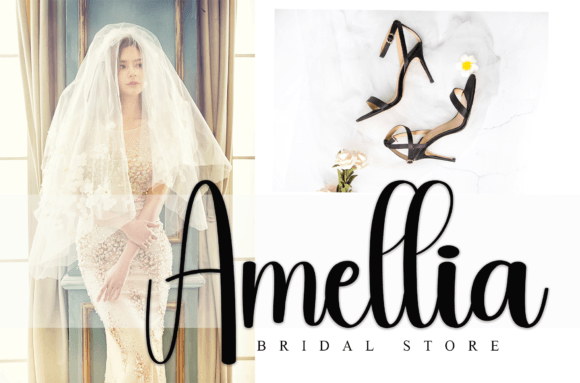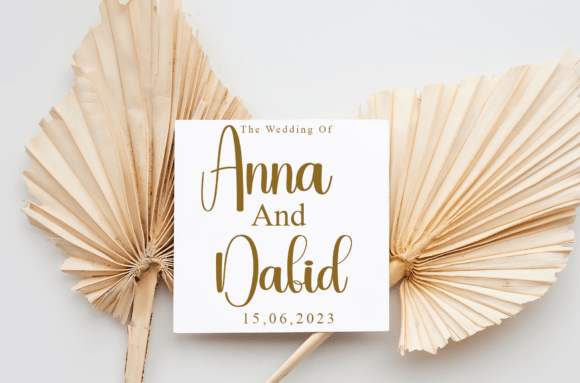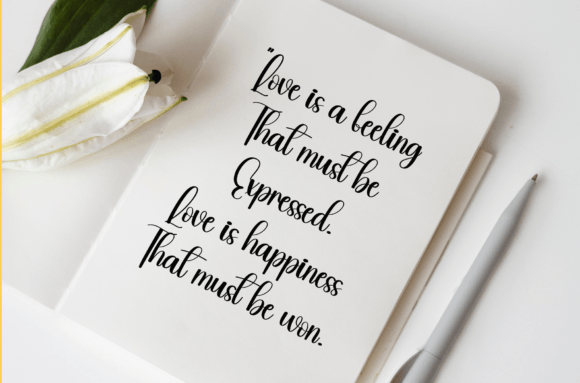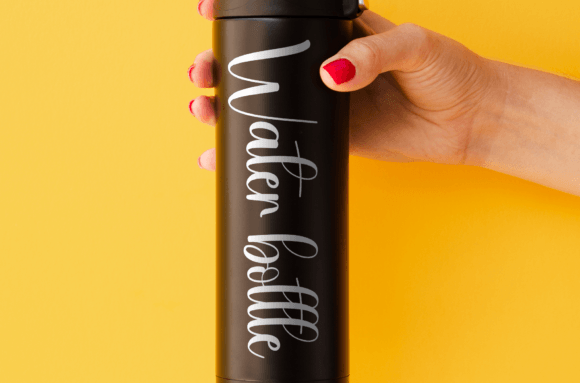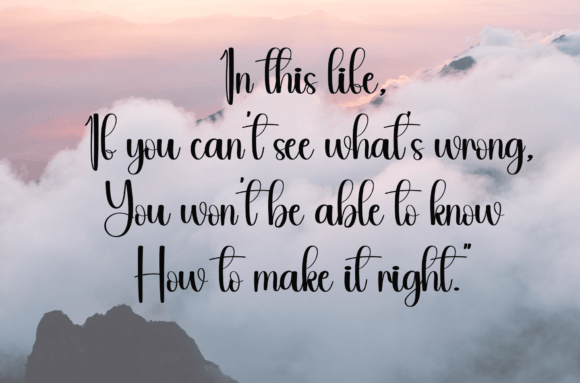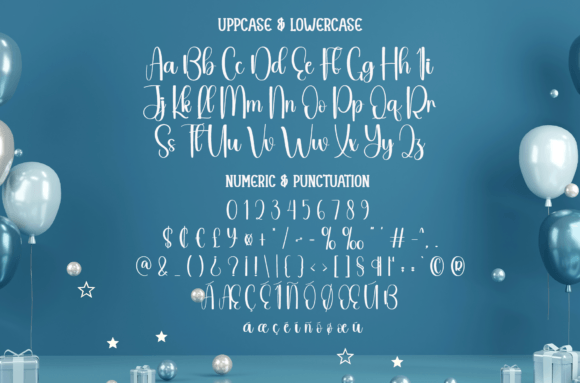
The Perfect Font for a Touch of Whimsy
Have you ever sat down with a blank piece of paper, a pen, and a spark of creativity, only to find yourself doodling away in a beautiful handwritten script? That’s exactly what happens when you work with the charming Blue Font.
This sweet and friendly font is perfect for adding a fresh touch to any design. Whether you’re crafting wedding invitations, designing cards, or creating a fun poster, Blue Font is the ideal choice. Its neat and approachable style makes it a valuable asset for designers looking to add a personal and whimsical feel to their work. With Blue Font, you can bring a smile to your audience’s face and make your designs truly unforgettable.
Key Features of Blue Font
- Unique Characteristics: Blue Font features a unique, hand-crafted design with subtle nuances and irregularities that give it a human touch.
Blue Font Review
As a designer, I was excited to dive into the world of Blue Font. I must say, it’s a visually appealing font that’s sure to grab attention. The ✨ bold lines and vibrant color palette make it perfect for creating eye-catching headings and titles.
- The font’s ✨ versatility is one of its greatest strengths. It works well in both digital and print formats, making it a great choice for designers who need to create materials for various mediums.
- Another ✨ advantage of Blue Font is its ✨ customizability. The font can be easily modified to fit any brand or design aesthetic, making it a great choice for designers who want to add a personal touch to their work.
However, as with any font, there are some limitations to consider. The ⚠️ biggest issue with Blue Font is its potential for overuse. The font’s bold lines and bright colors can be overwhelming if used too frequently, making it difficult to read.
Overall, I’d say that Blue Font is a solid choice for designers who want to add a pop of color to their work. While it’s not without its limitations, the font’s versatility and customizability make it a great option for designers who want to create visually appealing materials.
Tips for Getting the Most Out of Blue Font
Here are a few tips to help you get the most out of Blue Font:
- Use Blue Font to create a consistent visual brand across all your designs.
- Use Blue Font in combination with other design elements, such as images and graphics, to create a cohesive look.
Alternatives to “Blue Font” for Designers
Fontin is a modern sans-serif font designed by Robert Slimbach. It’s ideal for use in body text where a clean, readable font is required. Fontin has a slightly rounded edge compared to Blue Font, making it more suitable for digital screens. It’s also more versatile and can be used for headings and titles.
Georgia is a serif font designed by Matthew Carter. It’s best used for body text in print materials or digital publications where a classic, elegant look is desired. Georgia is more formal than Blue Font and has a traditional feel to it, making it suitable for corporate or academic materials.
Merriweather is a classic serif font designed by Eben Sorkin. It’s ideal for use in print materials or digital publications where a sophisticated, elegant look is desired. Merriweather is more formal than Blue Font and has a traditional feel to it, making it suitable for corporate or academic materials.